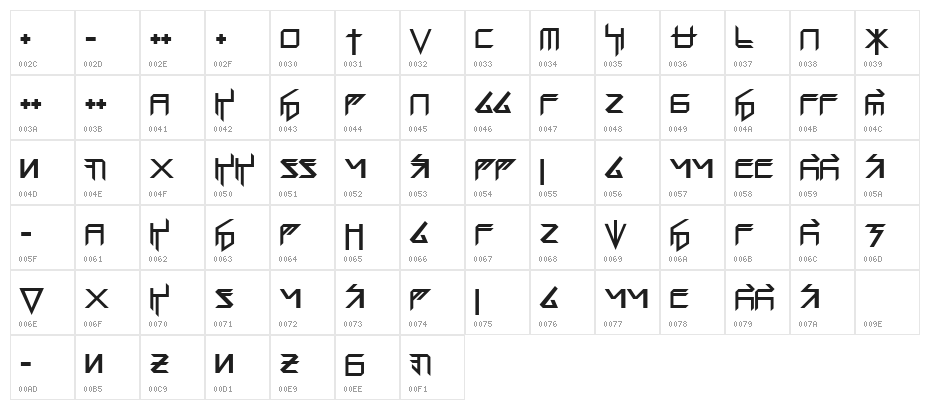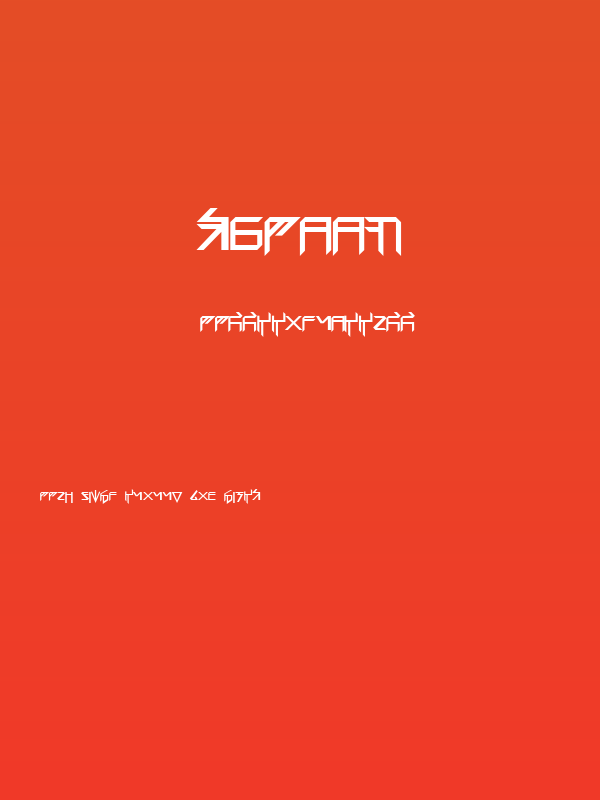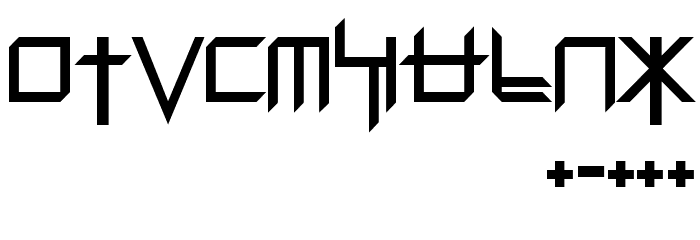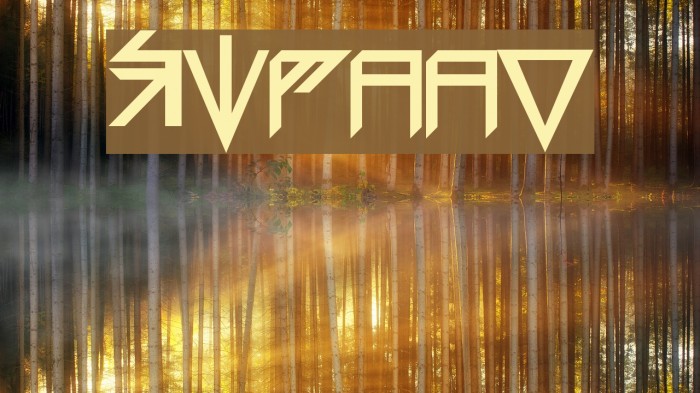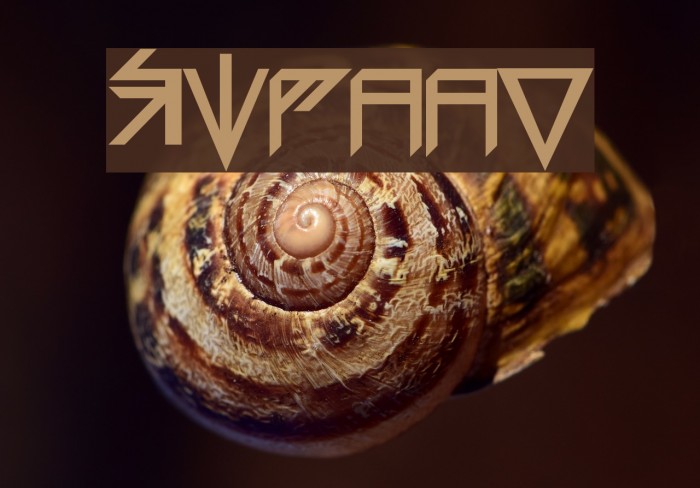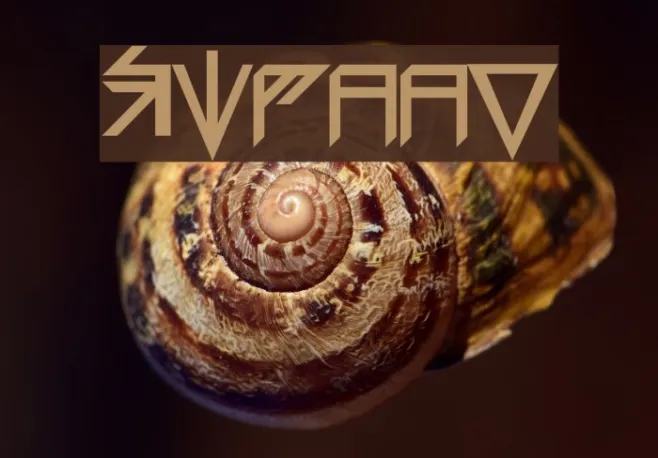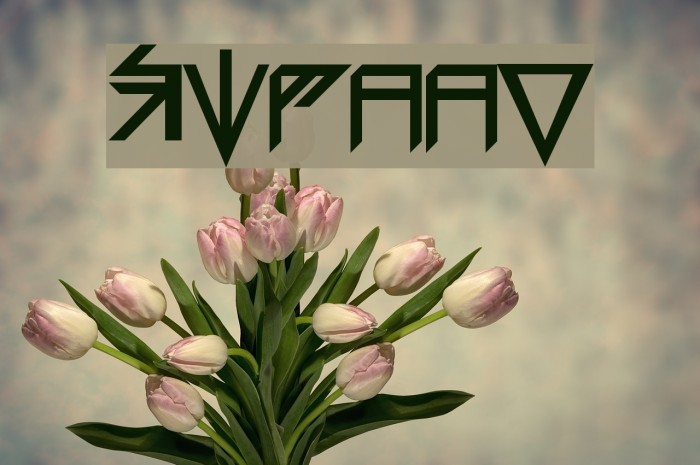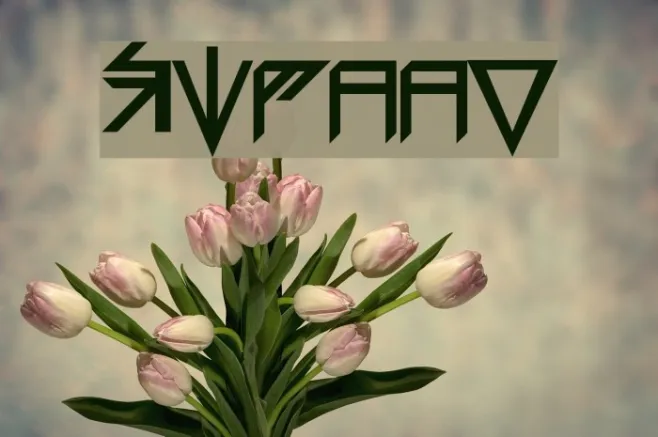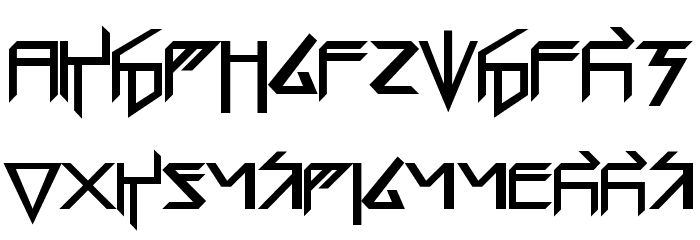
Sidaan Font
This font exhibits a bold, angular design with sharp edges and geometric shapes, reminiscent of futuristic or sci-fi themes. The characters are constructed with a consistent use of straight lines and pointed corners, creating a dynamic and aggressive appearance. The uppercase and lowercase letters maintain a uniform style, emphasizing the font's cohesive and structured aesthetic. The numbers and special characters follow the same design principles, ensuring a seamless integration across all elements. This font's unique style makes it stand out, ideal for projects that require a modern and edgy look.
| Proposed Projects | Ideal for sci-fi themed posters, video game titles, futuristic branding, and edgy graphic designs. |